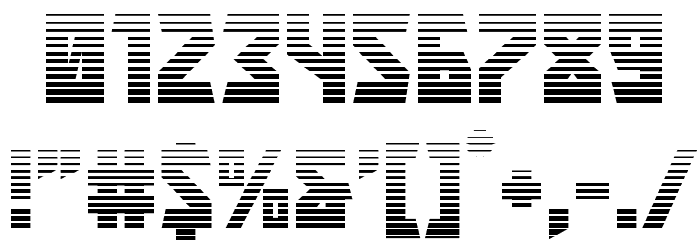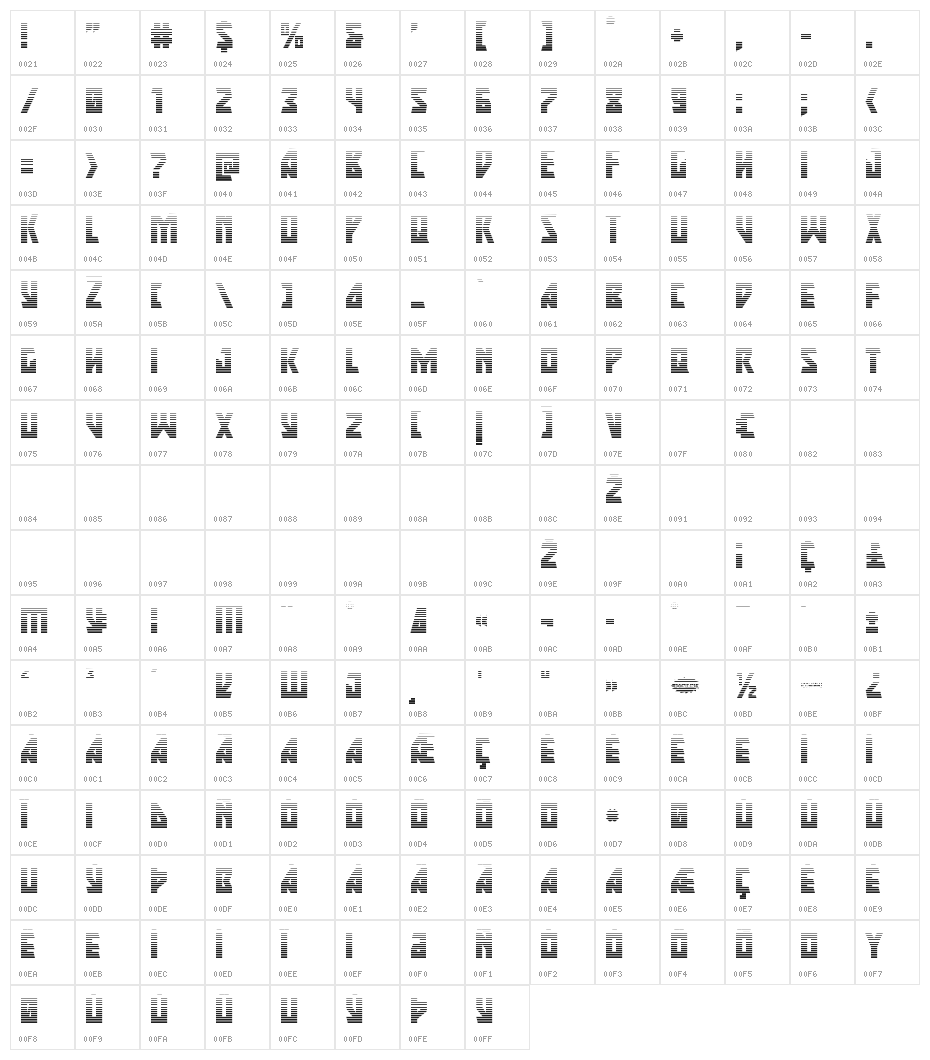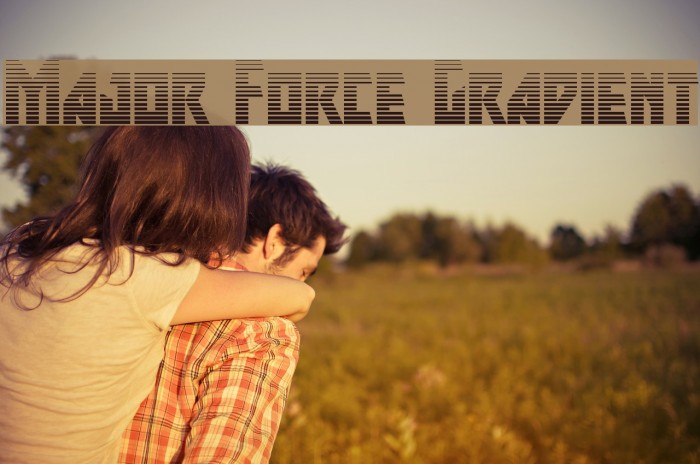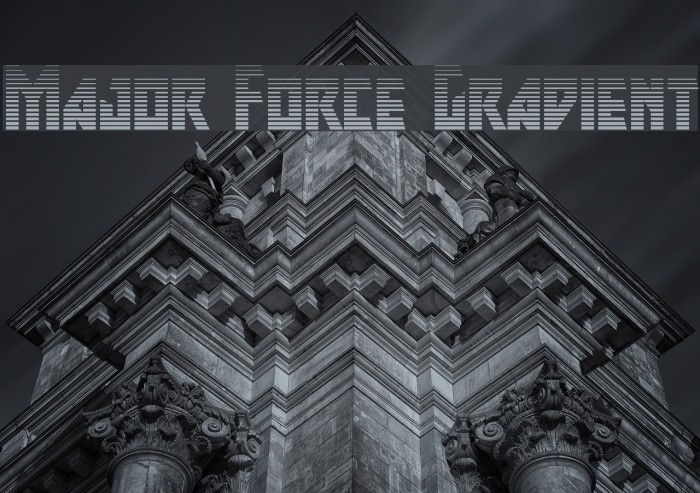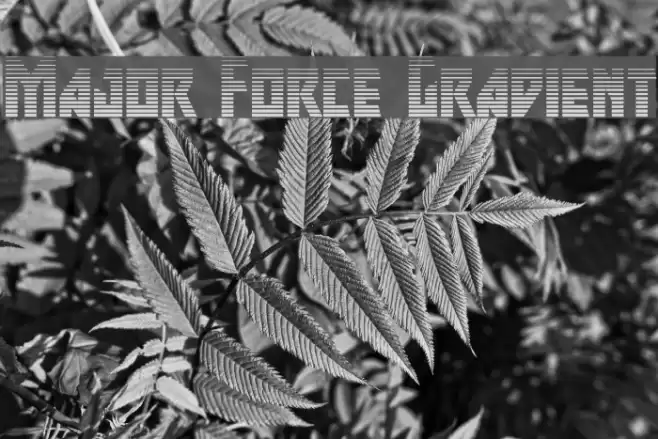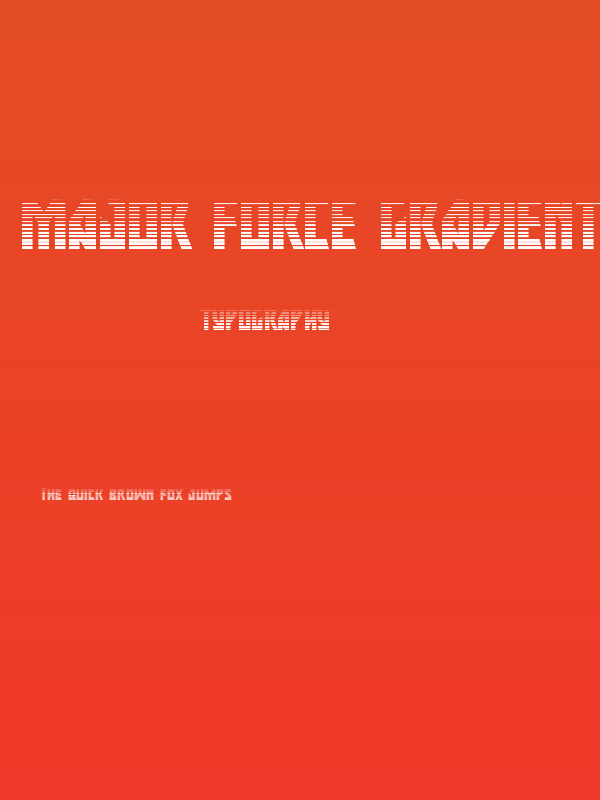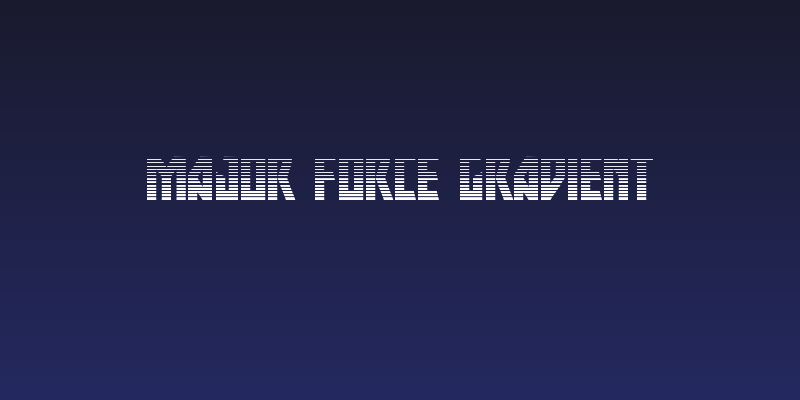
Major Force Gradient Font
Major Force Gradient Description
This font features a bold, futuristic design with a distinct gradient effect created by horizontal lines of varying thickness. The characters are constructed with a series of parallel lines that form a cohesive and striking visual pattern. This design gives the font a dynamic and modern appearance, making it ideal for projects that require a strong visual impact. The uppercase and lowercase letters maintain a consistent style, while the numbers and special characters are designed to complement the overall aesthetic. The font's unique style makes it suitable for creative and innovative design projects.
| Proposed Projects | Ideal for sci-fi themed designs, video game graphics, posters, and branding that requires a modern and dynamic look. |